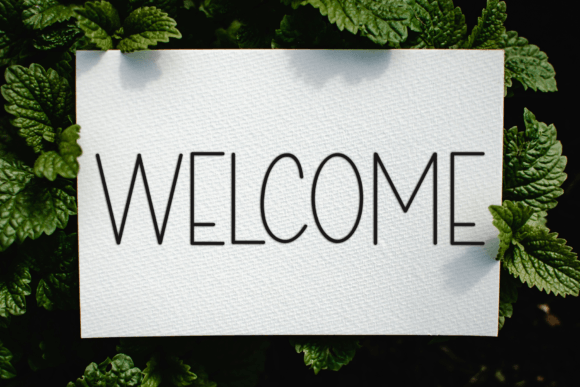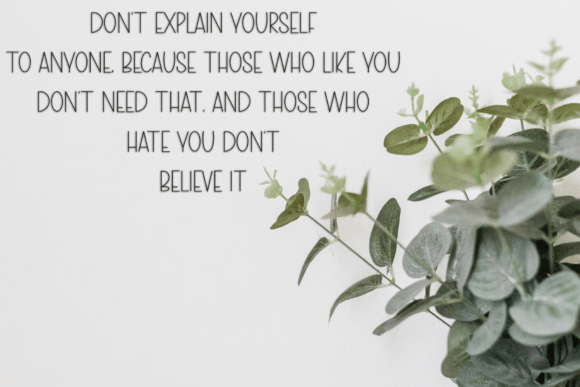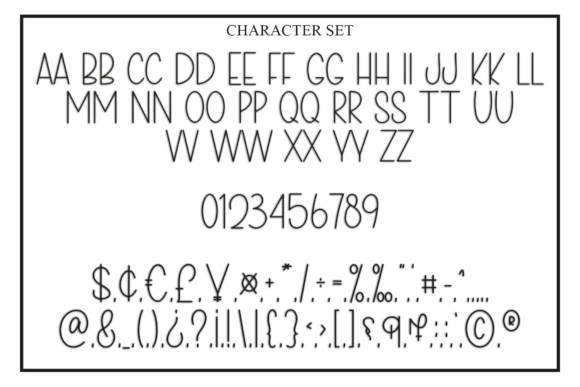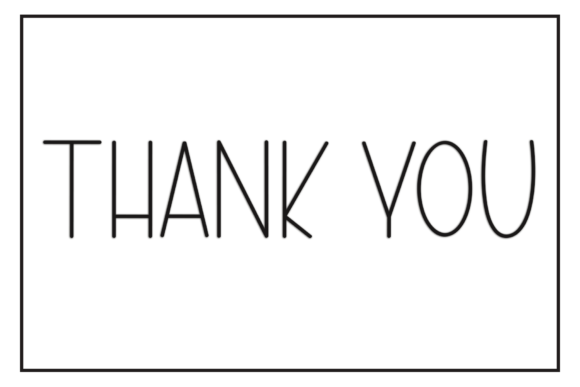
The Charm of Alphabet Font: A Designer’s Delight
I still remember the time I was working on a wedding invitation project, and my client asked for a font that was elegant, yet playful. I scoured the internet, tried out countless fonts, but nothing seemed to fit the bill. That was until I stumbled upon Alphabet Font. It was love at first sight! 💕 The elegant curves, the charming personality, and the versatility of this font won me over. In this article, I’ll share my experience with Alphabet Font, its features, and how to make the most of it in your designs.
- ✨ Elegant and charming personality that adds a touch of sophistication to any design
- ✅ Highly versatile and suitable for a wide range of projects, from wedding invitations to logos and business cards
- 💫 Beautifully crafted with attention to detail, making it a joy to work with
- 🎨 Supports OpenType features, glyphs, and stylistic alternates, giving you creative freedom
While Alphabet Font is an excellent choice, there are a few things to keep in mind:
- 🤔 Some users may find the font a bit too ornate for certain projects, such as body text or lengthy articles
- ⚠️ Limited availability of certain characters or glyphs in certain platforms or software
The Backstory of Alphabet Font
While the origins of Alphabet Font are unclear, it’s likely that it was inspired by traditional calligraphy and handwriting. The designer, likely a skilled typographer, aimed to create a font that exudes elegance and charm. The result is a beautiful, versatile font that’s perfect for a wide range of creative projects.
| Font Name | Alphabet Font |
| Author | Black line |
| What type of projects is Alphabet Font best suited for? | Alphabet Font is highly versatile and suitable for wedding invitations, thank you cards, quotes, greeting cards, logos, business cards, and more. |
| Is Alphabet Font suitable for body text or lengthy articles? | While Alphabet Font is beautiful, it may not be the best choice for body text or lengthy articles due to its ornate nature. |